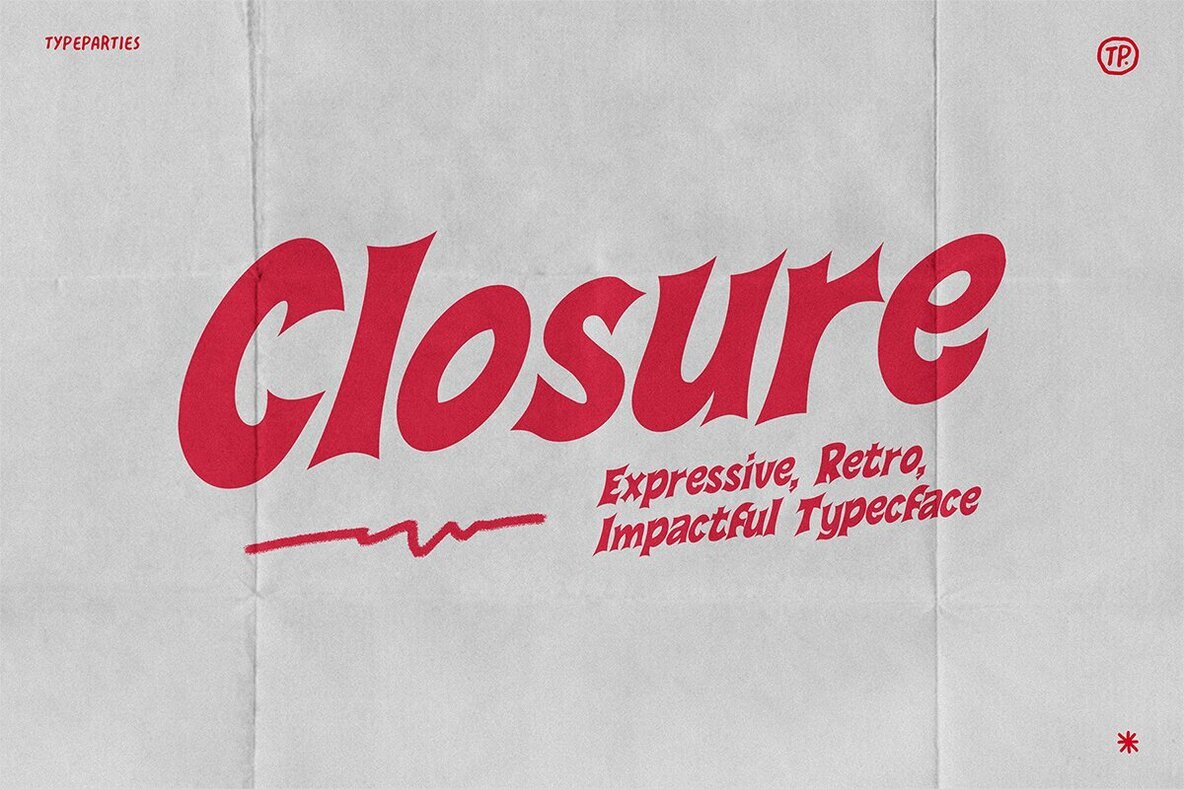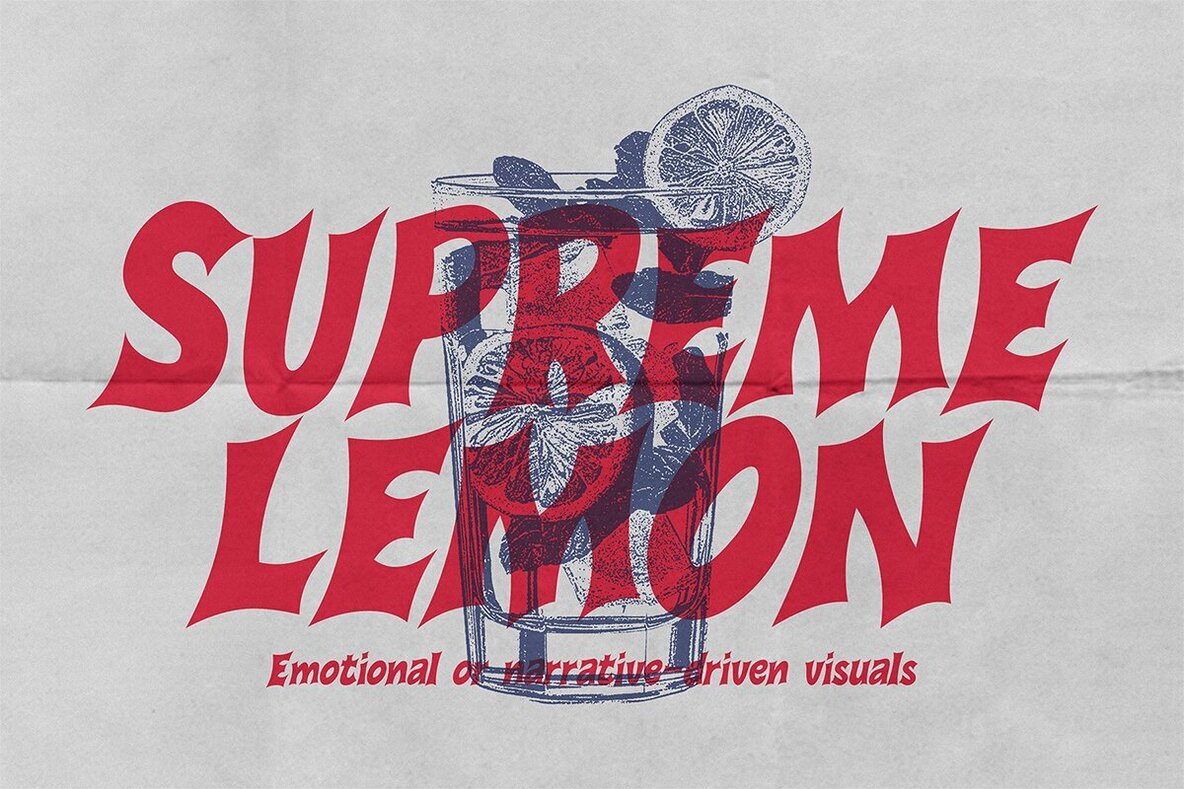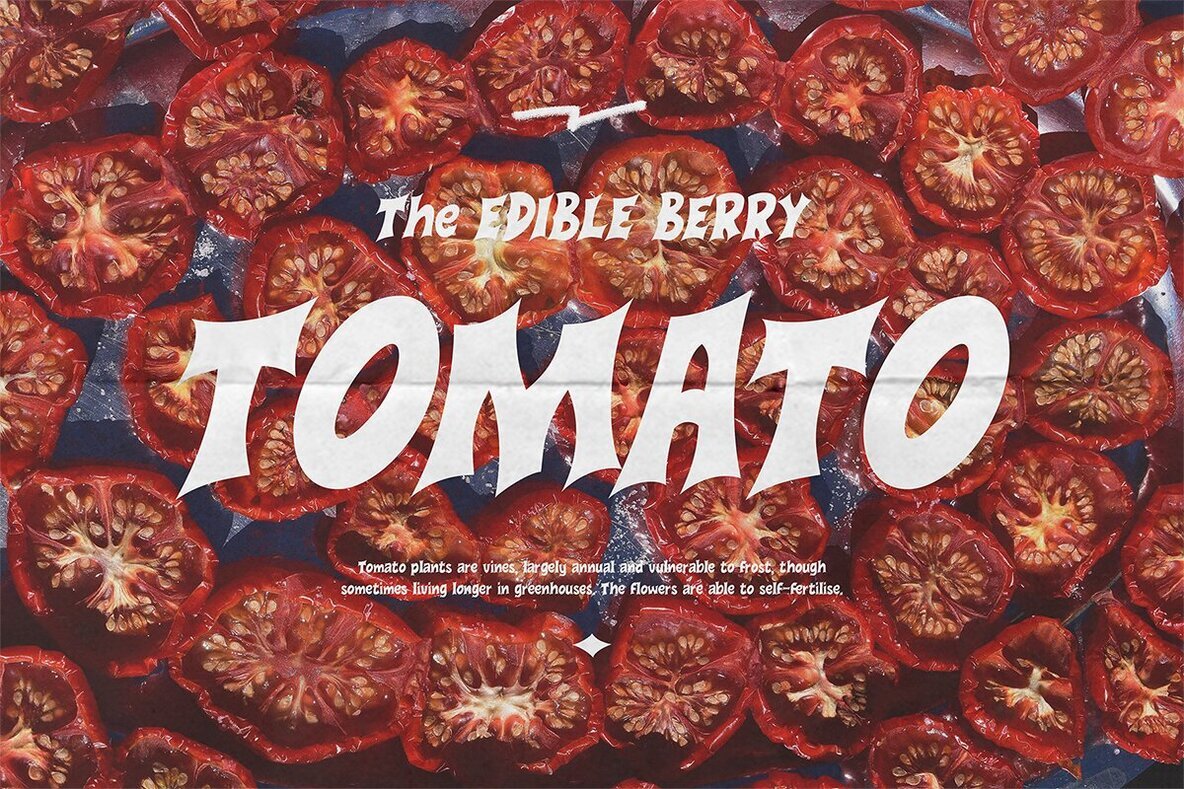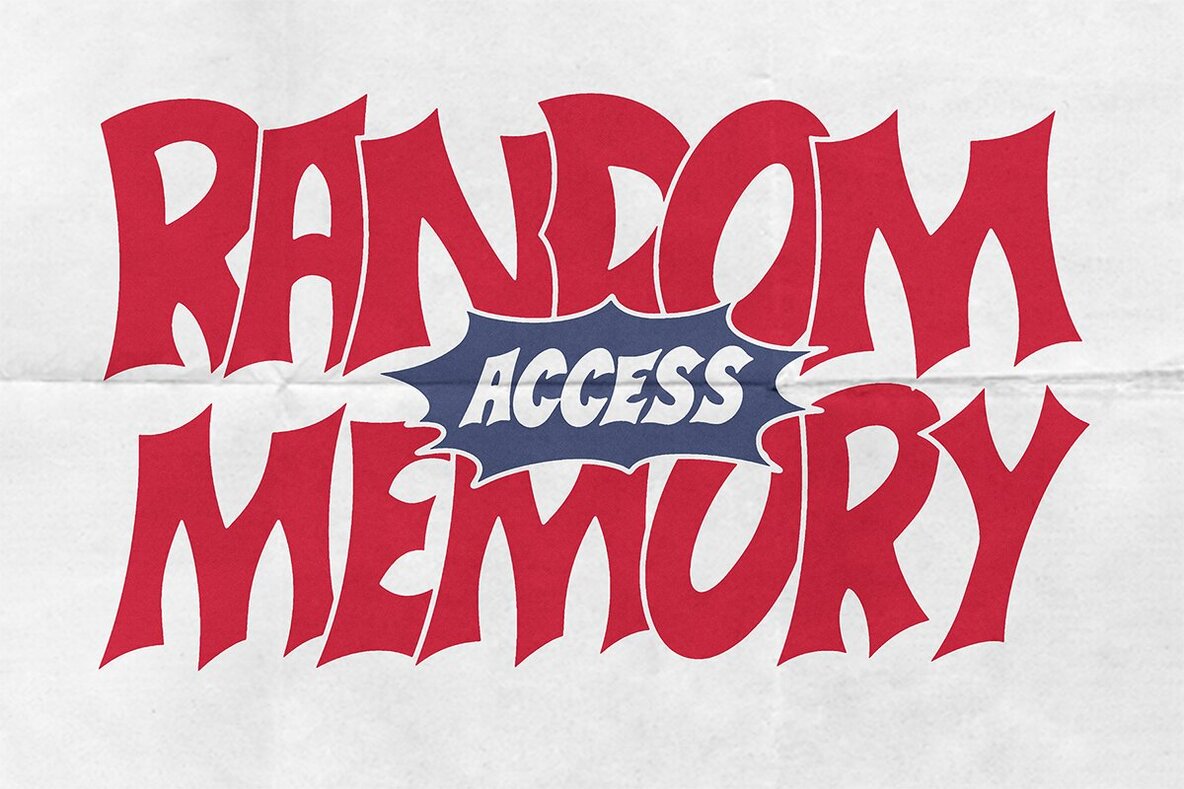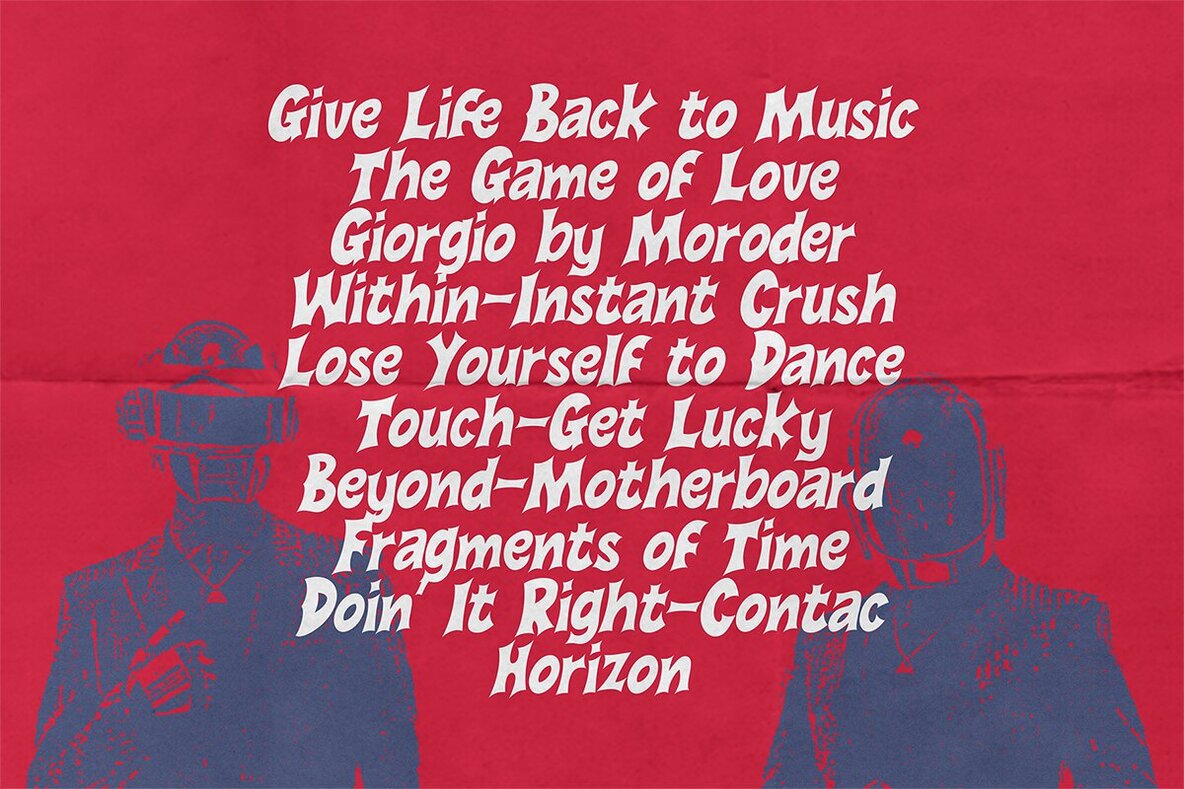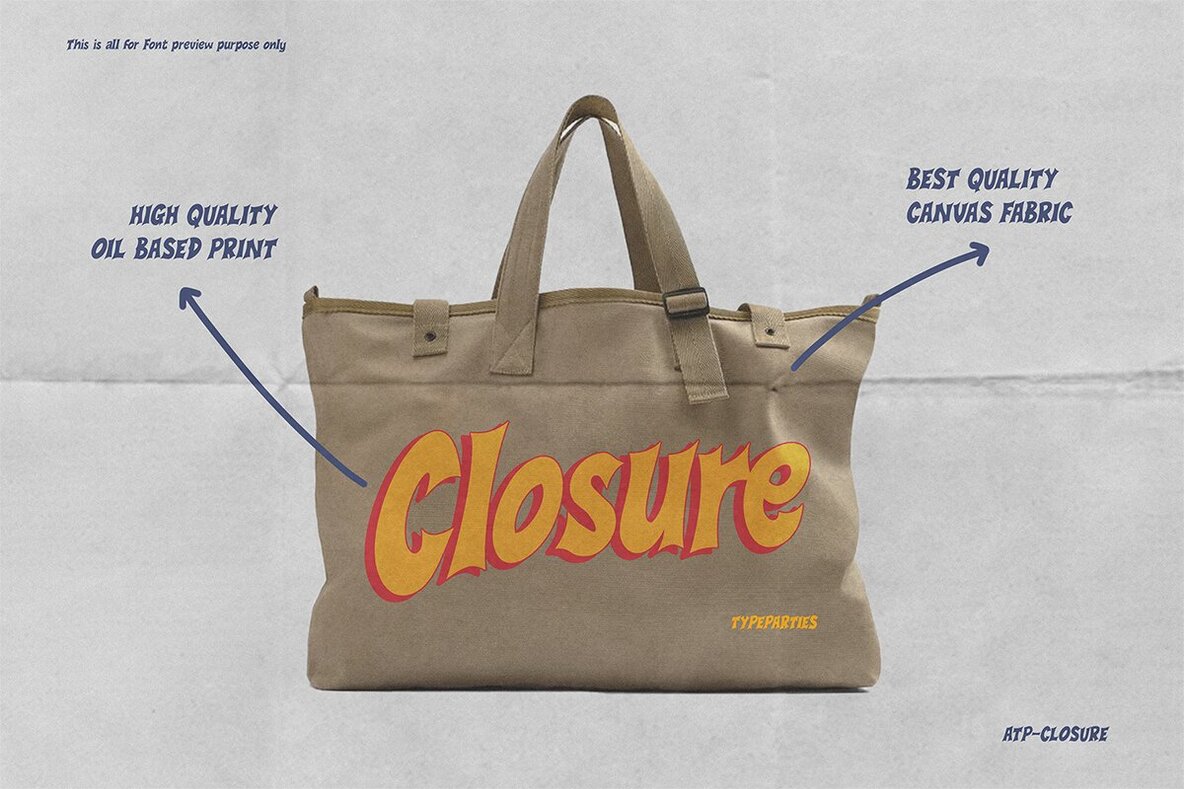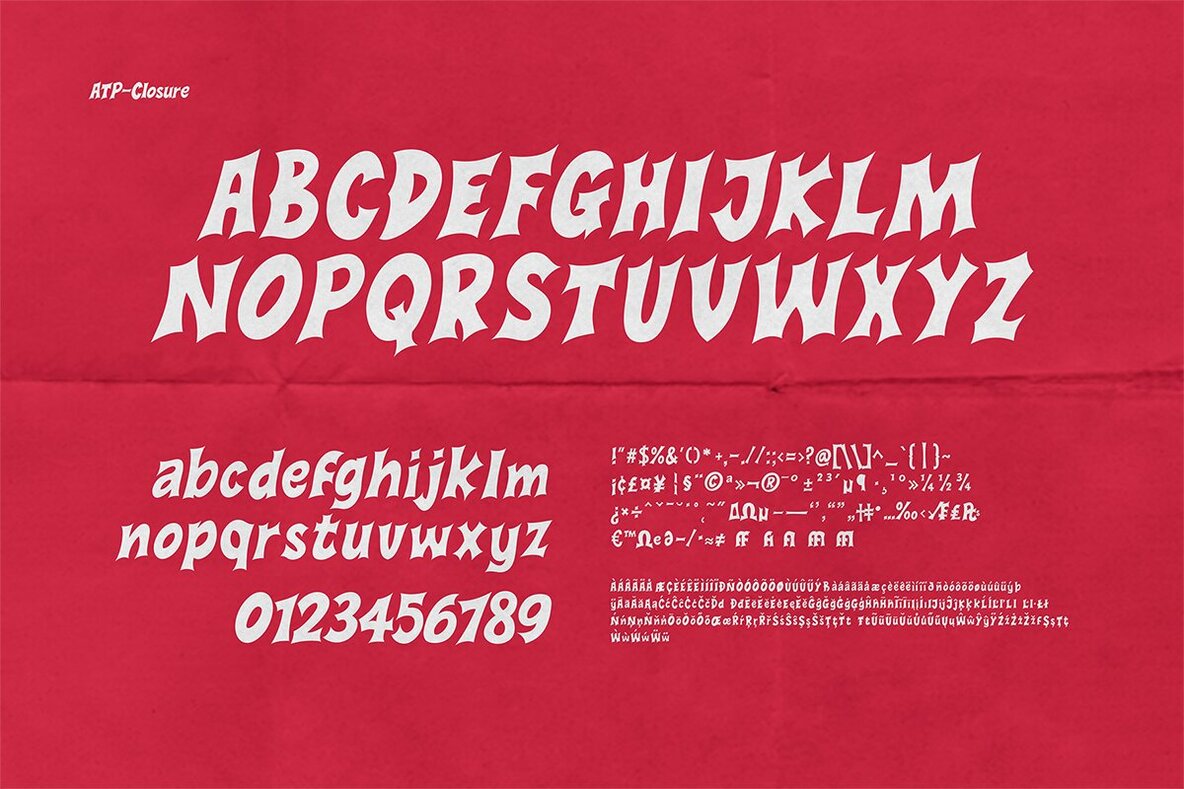
Closure Font
ATP Closure
Closure is a captivating display font that captures retro nostalgia with a modern twist. Bold and striking, each letterform combines high contrast strokes with angular cuts and dynamic curves, making a powerful impression. Perfect for demanding attention in headlines, branding, or editorial designs, Closure is your go-to choice when your projects require a blend of personality and visual drama. Choose Closure to evoke finality and emotional depth in your designs, bringing both sculptural rhythm and exaggerated forms to the forefront.Closure – Dynamic Display Font